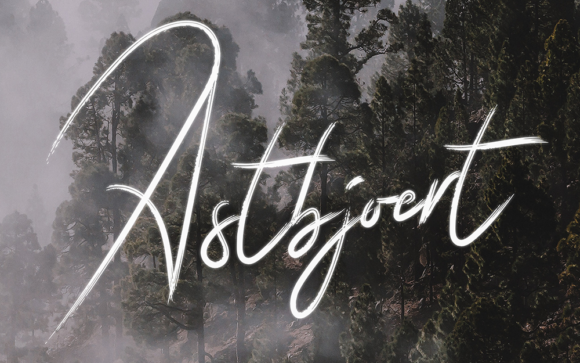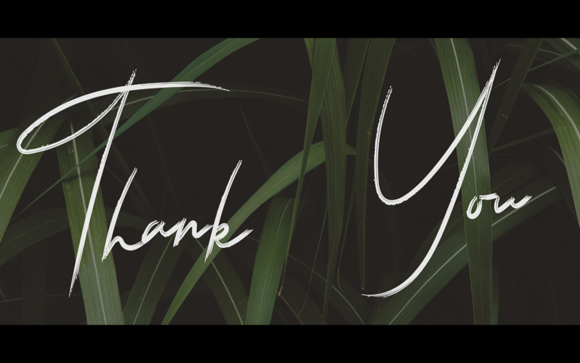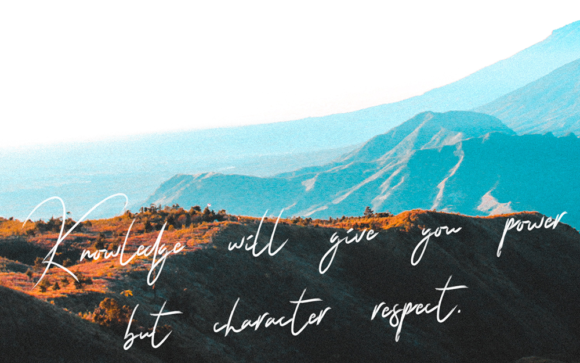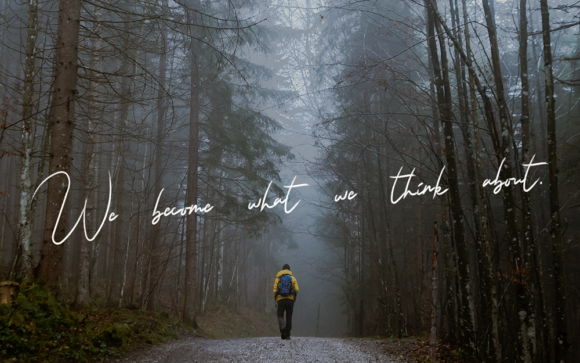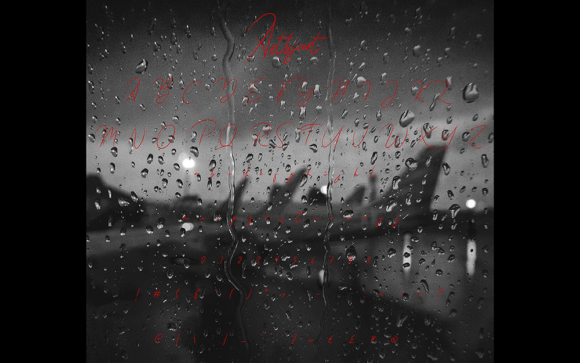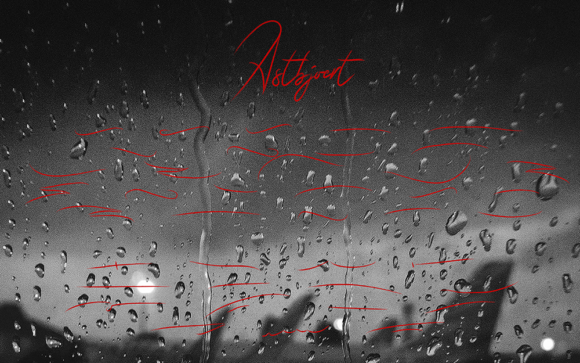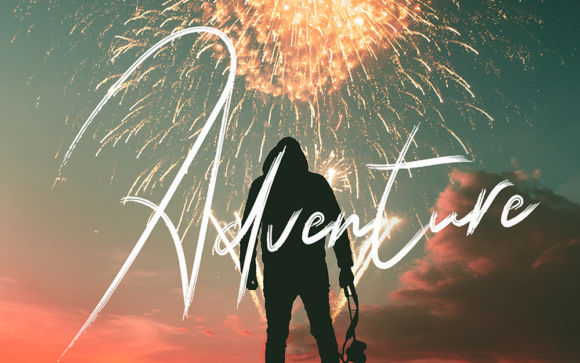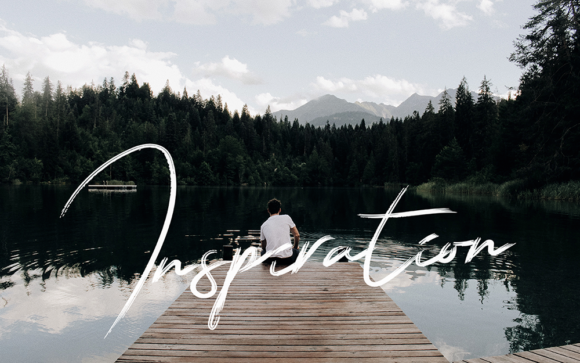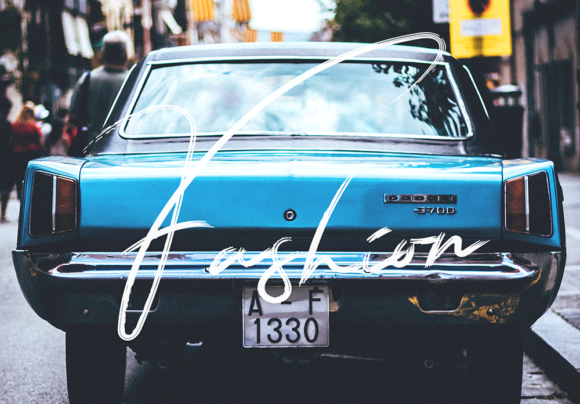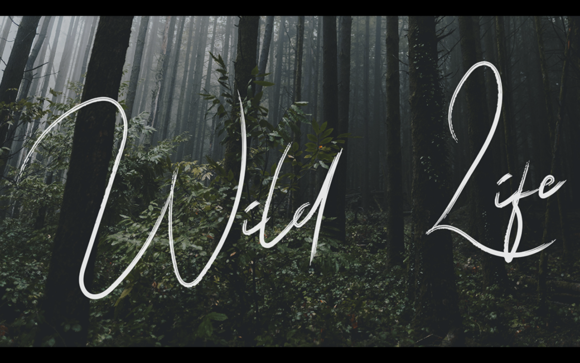
Astbjoert Font
About Astbjoert Font
The Astbjoert is a rough brush font. It has a striking look and is perfect for social media, Instagram posts, labeling, clothing, books, album covers, poster, any printable project, and much more!